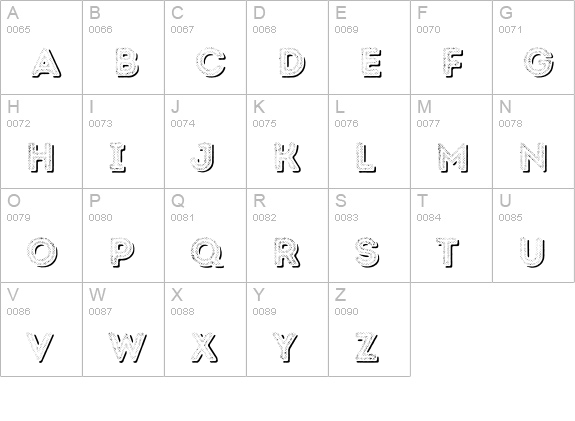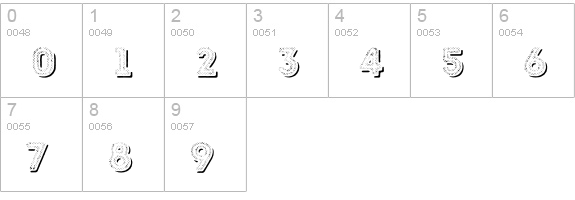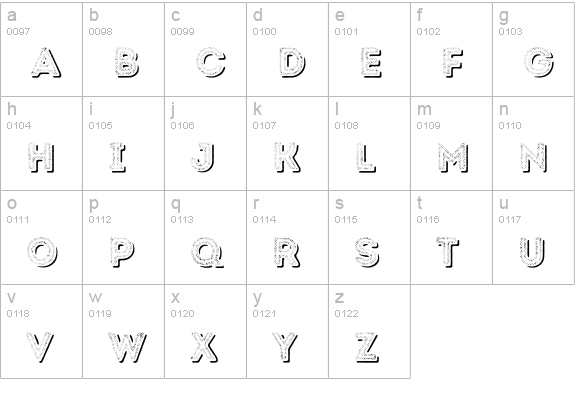
Intro Rust H2 Fill 2 Shade is a dynamic and eye-catching display font that is sure to make a statement in any design project. This unique font features a bold and striking design with intricate details that add depth and dimension to your text. Ideal for headlines, posters, and branding materials, Intro Rust H2 Fill 2 Shade will give your work a modern and edgy look. Best of all, this font is available for free download at FontsMarket.com, making it easily accessible for designers and creatives looking to add a touch of personality to their projects. Don't miss out on the opportunity to enhance your designs with the striking style of Intro Rust H2 Fill 2 Shade - download it today and take your creations to the next level!